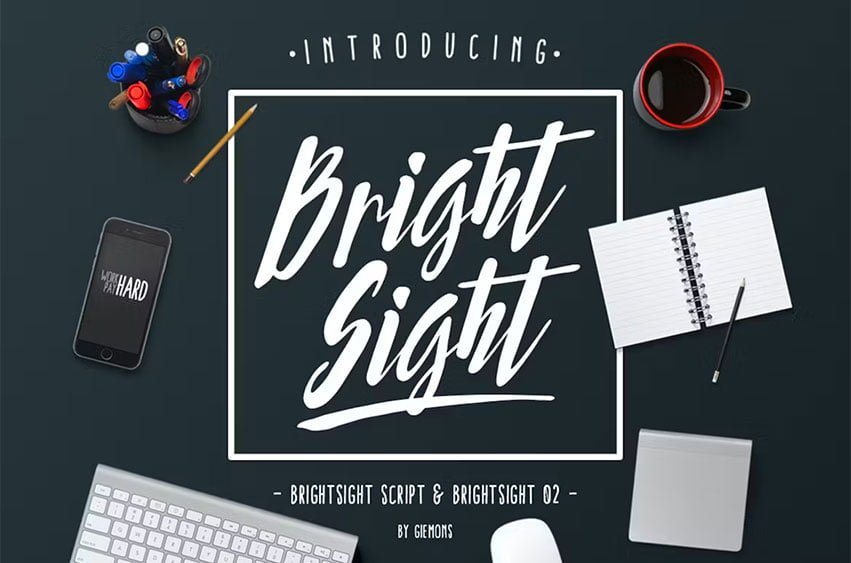
Bright Sight Font Has 2 font of style options that can make it easier to convey the message in your design.
Use for the awesome badge, display, labeling, clothing, movie sceen, party poster, movie title, gigs, album covers, logos, and much more.